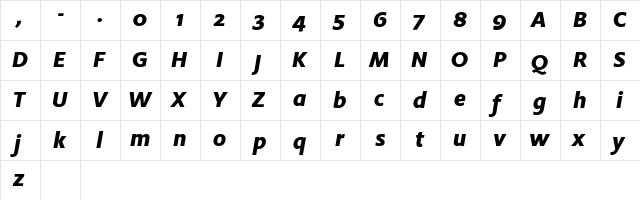
Flex ExtraBold Italic
ExtraBold Italic · Paul van der Laan Paul van der Laan ·
DesignerPaul van der Laan
Design Context for Flex Typeface
Flex is a composed and adaptable typeface that performs quietly and consistently across a wide range of design contexts. Its italic angle brings a sense of urgency and motion to the letterforms. Its bold stroke weight gives it real presence on the page.
Pro Tip: Try Flex for annotation and caption copy alongside an upright companion — the contrast in angle creates a dynamic but ordered typographic system.